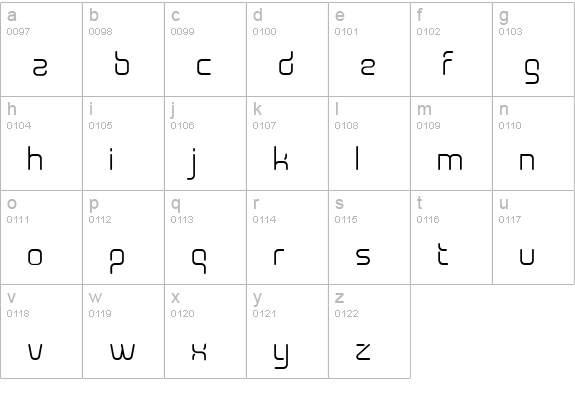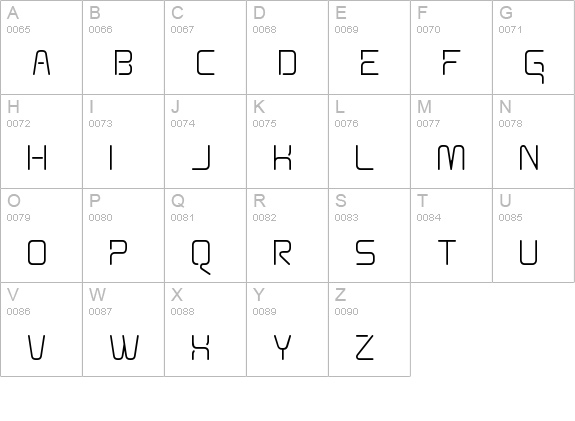
The AunchantedXspace font is a whimsical and enchanting typeface that is perfect for adding a touch of magic to your designs. With its unique blend of curves and straight lines, this font exudes a sense of mystery and wonder. Whether you are creating a fairy tale book cover, a fantasy-themed poster, or a mystical logo, AunchantedXspace will bring your creations to life. The best part? AunchantedXspace is available for free download at FontsMarket.com! This means that you can easily access this captivating font and use it in your projects without any cost. Don't miss out on the opportunity to add a touch of enchantment to your designs with AunchantedXspace. Download it today and let your creativity soar!